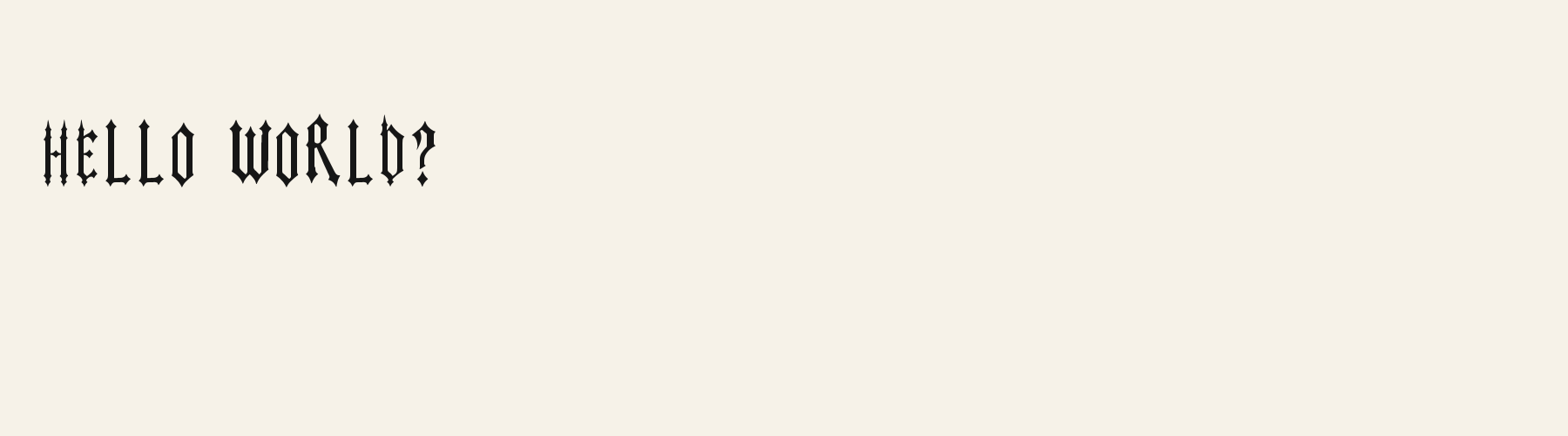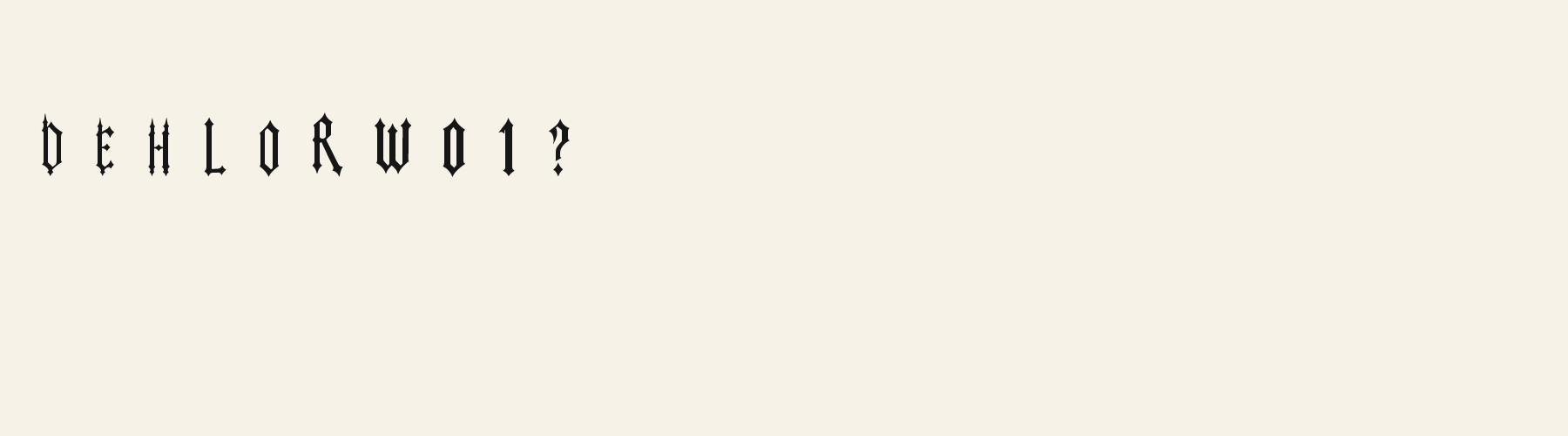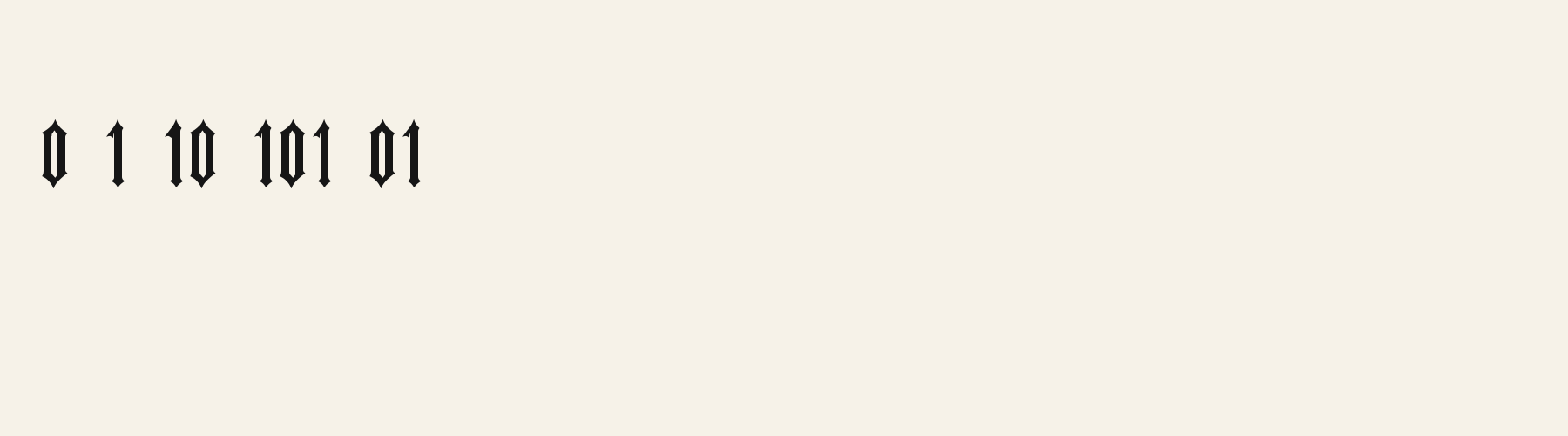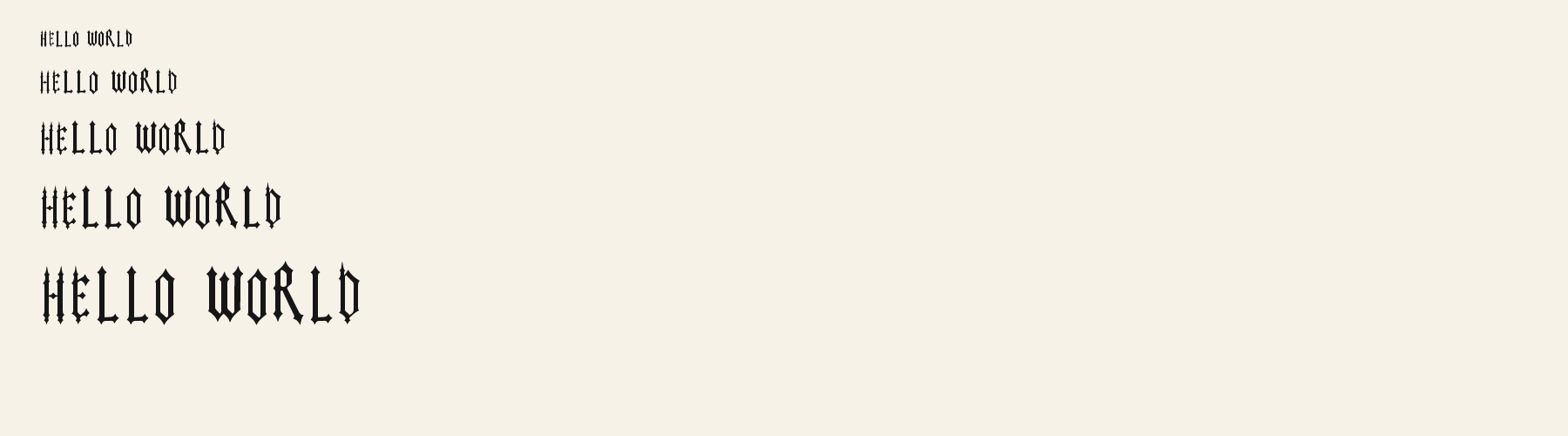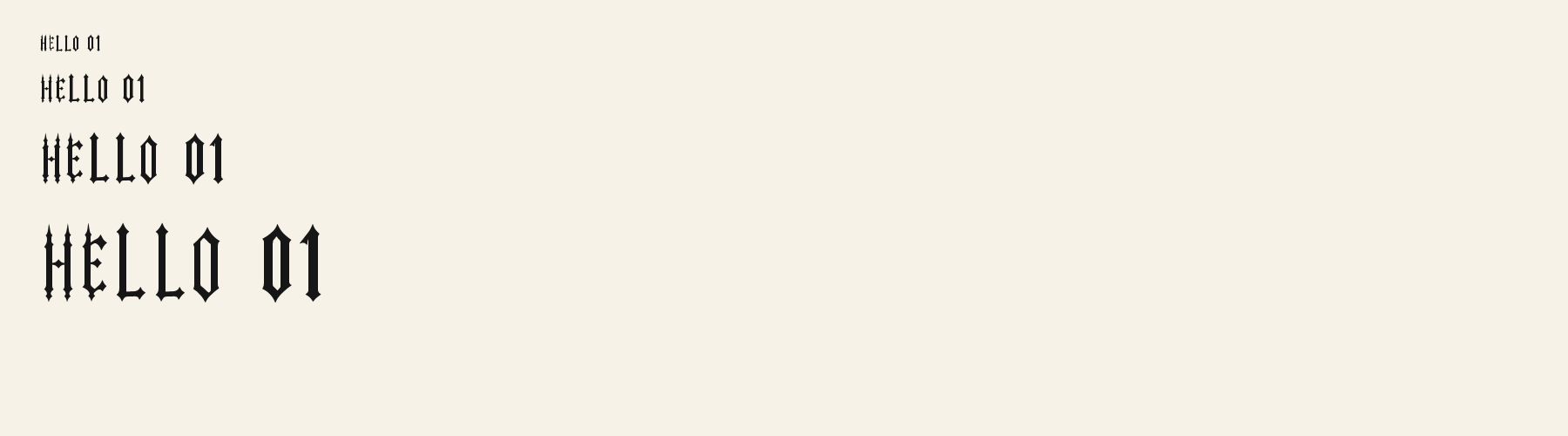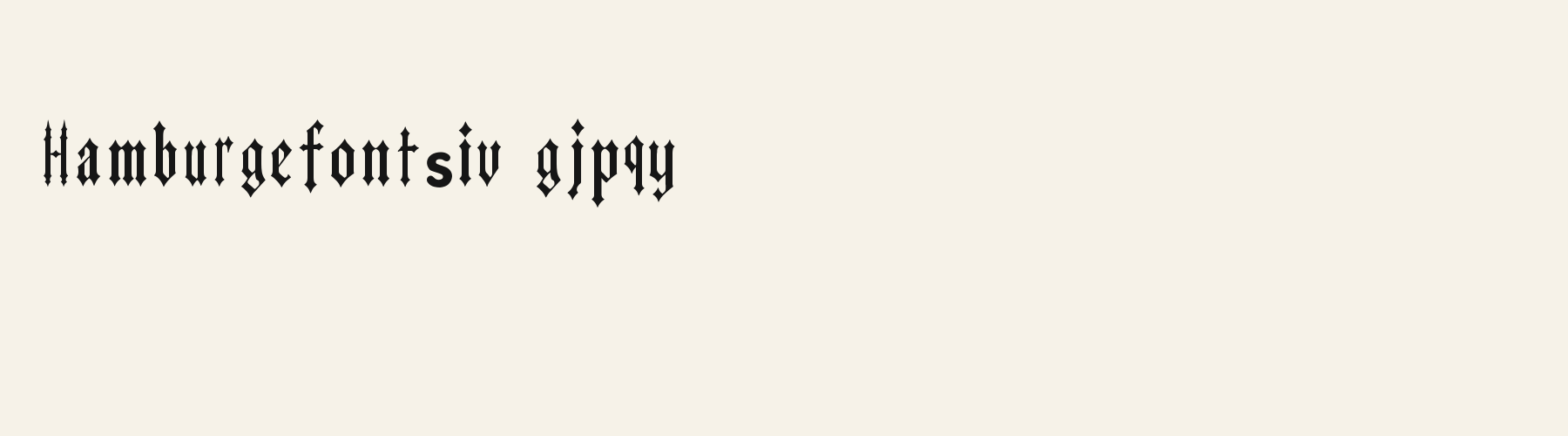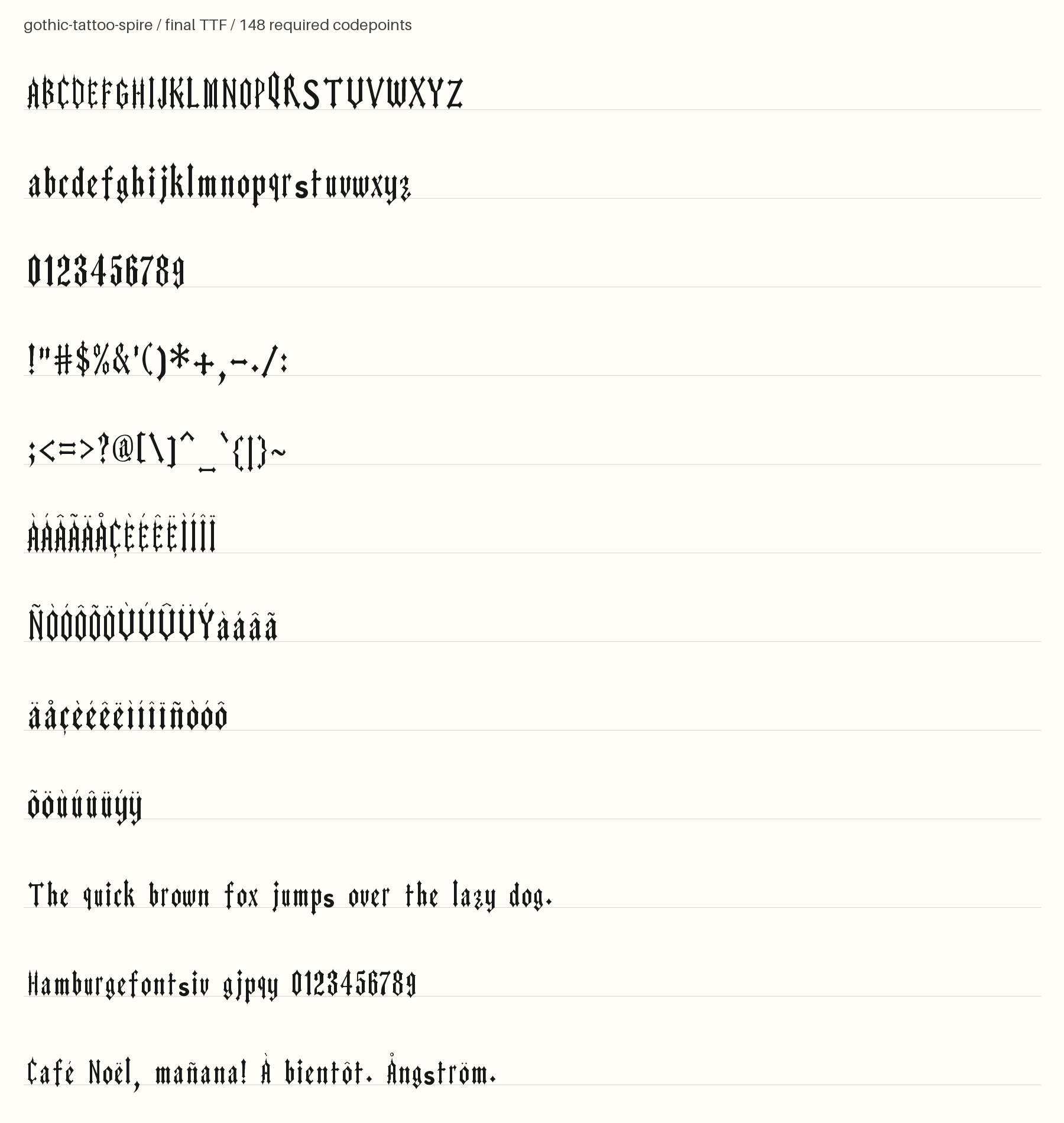
Gothic Tattoo Iron
DecorativeGothic Tattoo Iron
Gothic Tattoo Spire is a tattoo lettering, old-English titles and medieval display work. strong vertical black strokes, crisp diamond terminals and controlled broken curves. Best for tattoo lettering, old-English titles and medieval display work.
Includes all 95 printable Basic Latin characters and 148 glyphs in total.
Verified language coverage: English (Basic Latin)